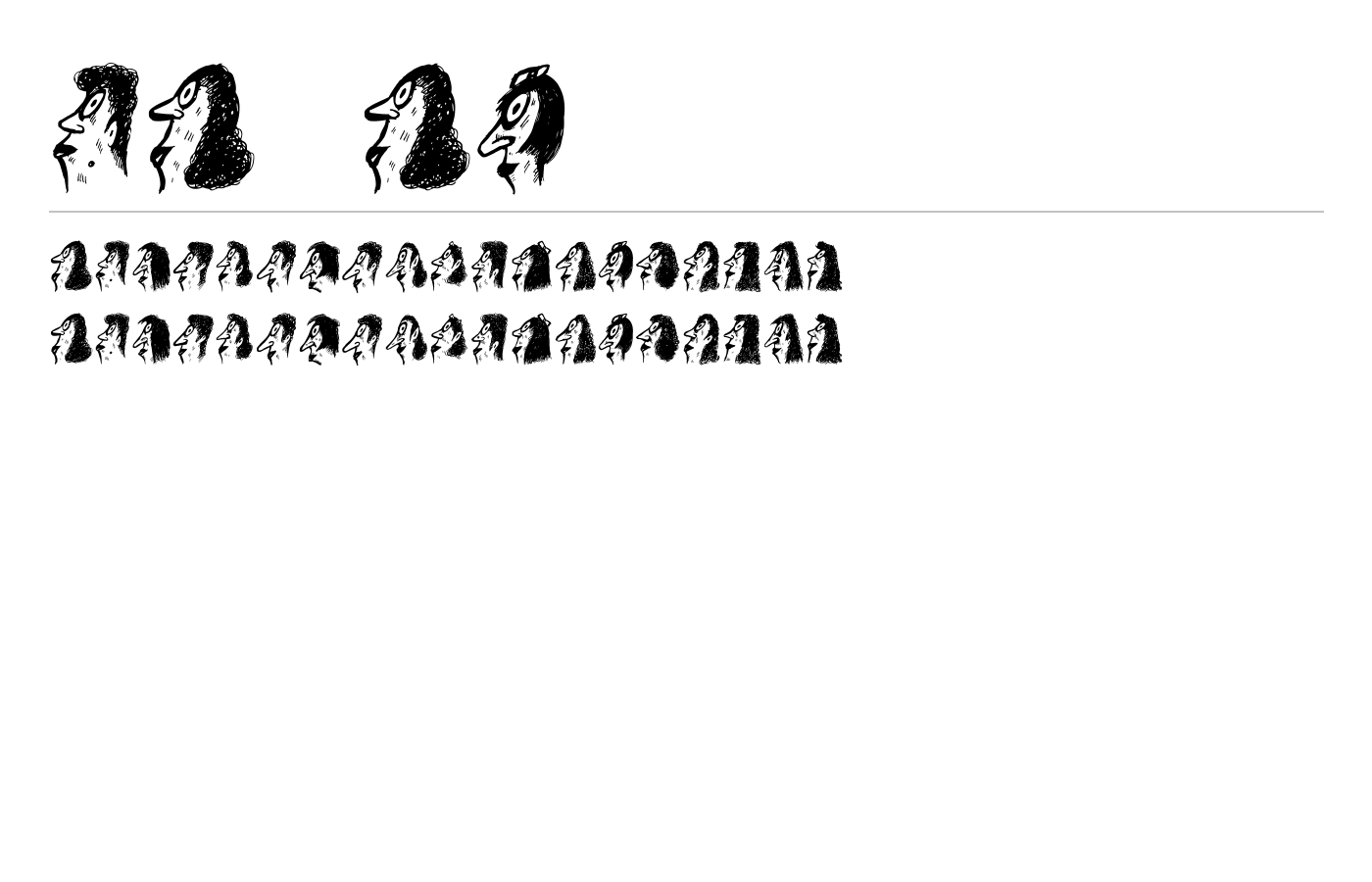
Bayan Font is a whimsical, hand-drawn display typeface that transforms characters into quirky, expressive faces. Its irregular, sketch-like strokes create a playful and artistic vibe, making it ideal for creative projects, cartoons, or casual branding where a unique and lively personality is desired. This font works best in large sizes for headlines, logos, or illustrations rather than body text, as its unusual letterforms prioritize visual impact over readability.
Bayan Font